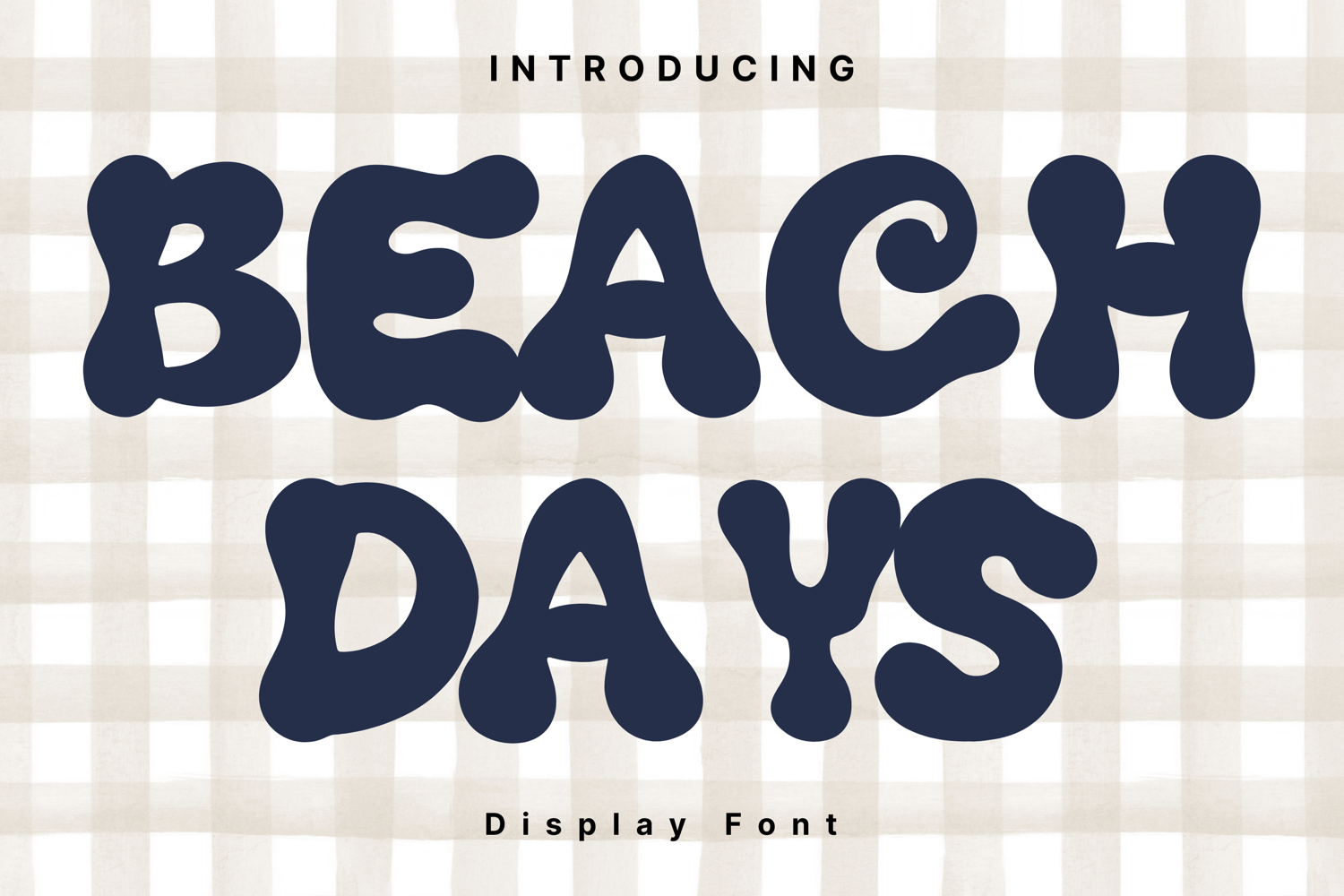
Beach Days Style
BeachDays
Beach Days is a playful and bubbly display font inspired by summer vibes and seaside fun. Its rounded, organic shapes resemble waves and beach pebbles, making it perfect for cheerful, casual designs. Ideal for summer event posters, children’s book titles, beach-themed branding, and social media graphics, this font brings a lighthearted, sunny personality to any project.